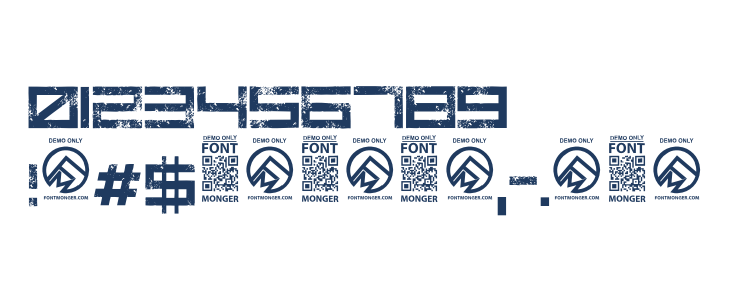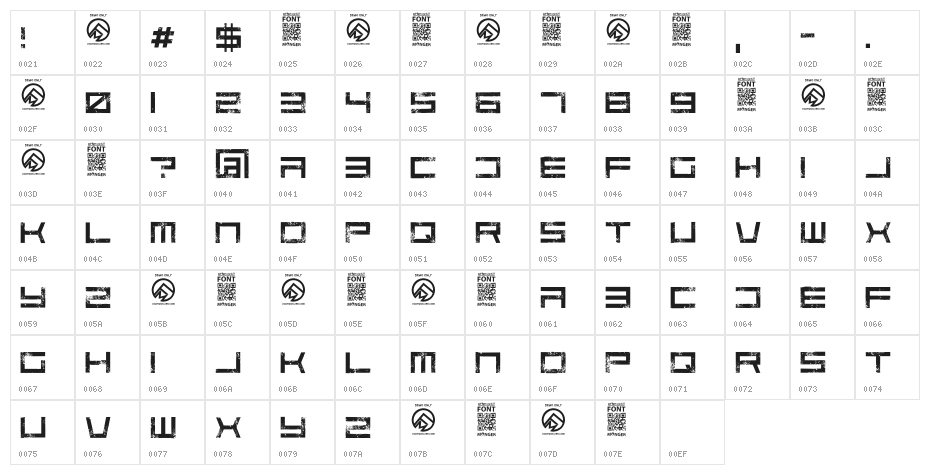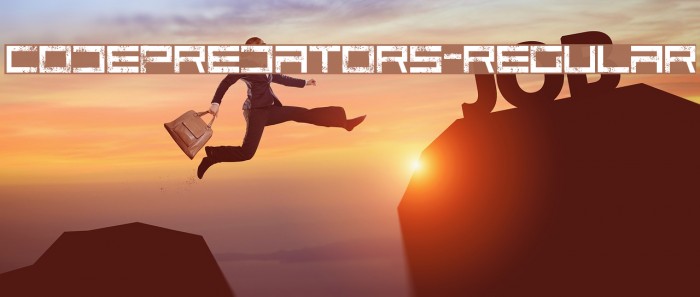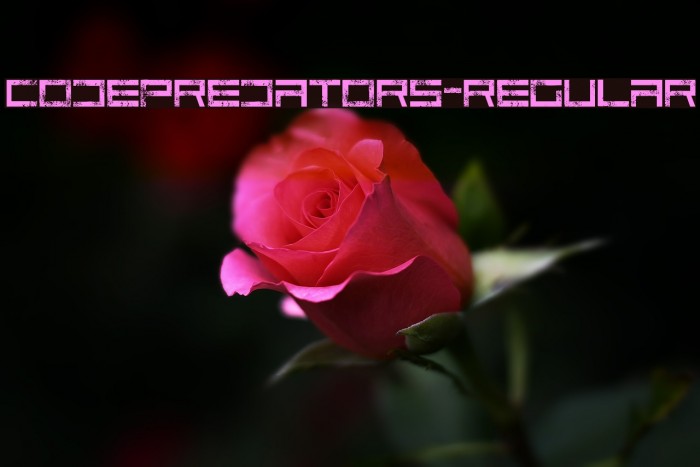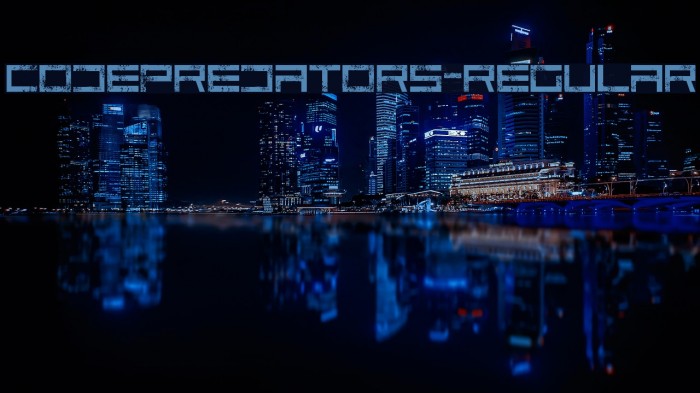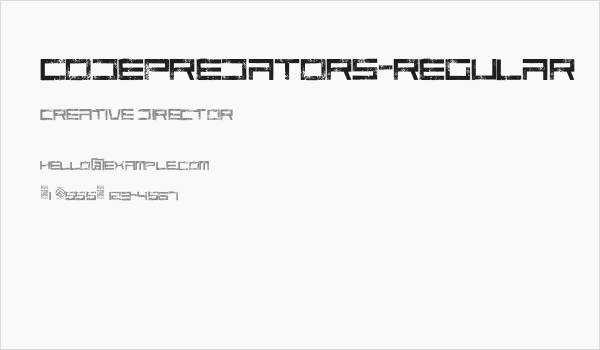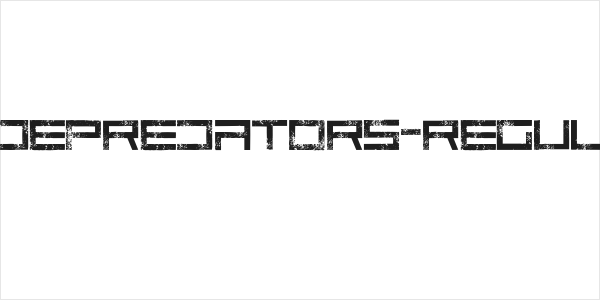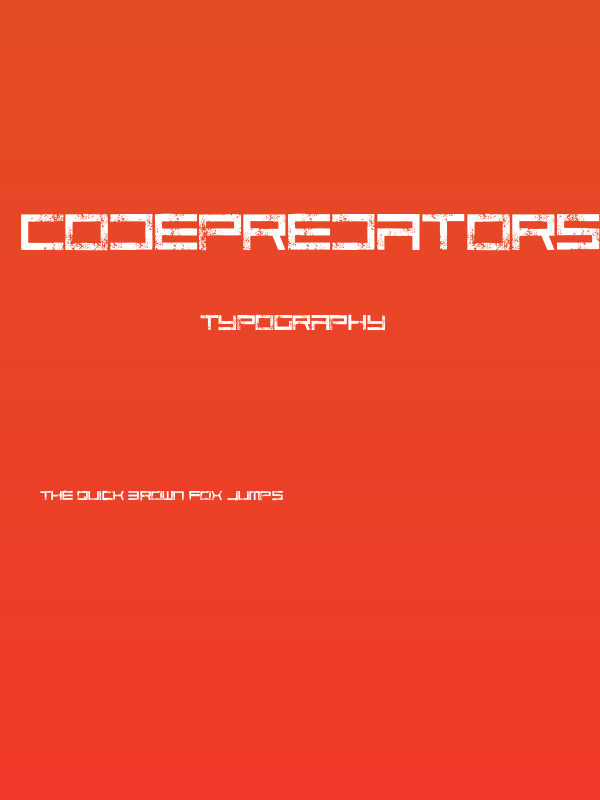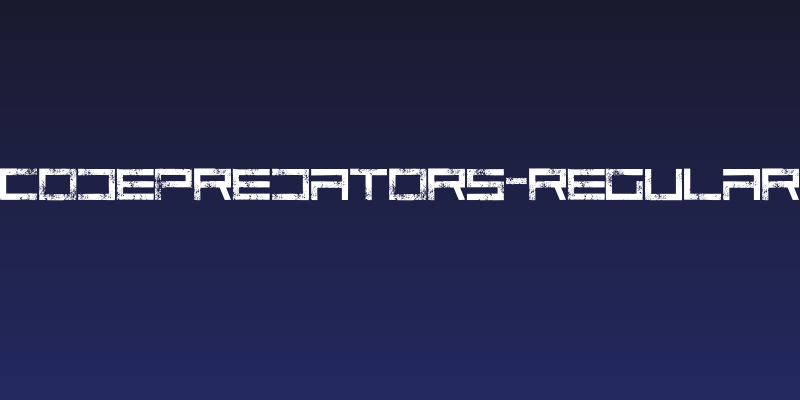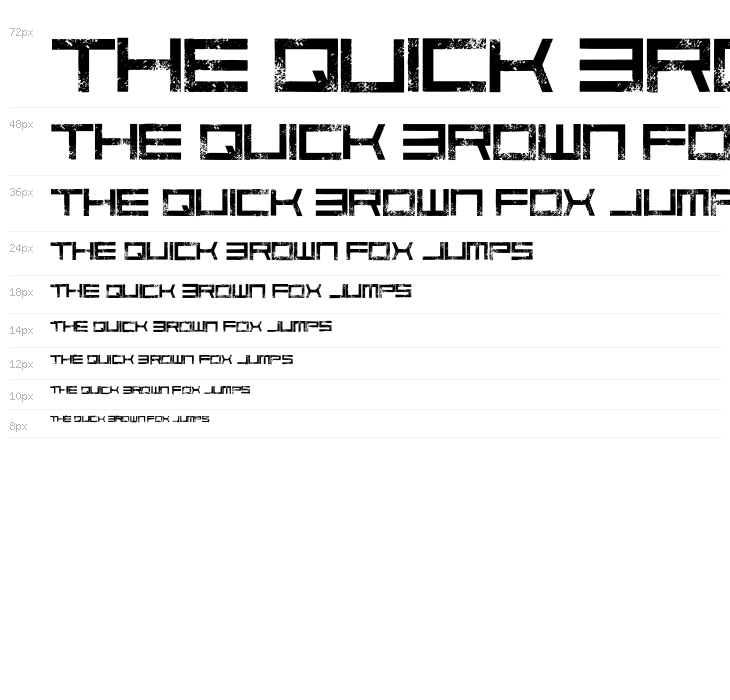
CodePredators-Regular Font
CodePredators-Regular Description
This font features a bold, distressed style with a futuristic and digital aesthetic. The characters are blocky and geometric, with a worn texture that gives them a rugged, industrial feel. The uppercase and lowercase letters maintain a consistent height, creating a uniform appearance. The numerals and special characters follow the same design principles, ensuring cohesion across all elements. The font's unique style makes it stand out, suitable for projects that require a strong, edgy look.
| Overall Style | Futuristic, Industrial |
| Proposed Projects | Ideal for video game titles, tech-themed posters, and edgy branding projects. |